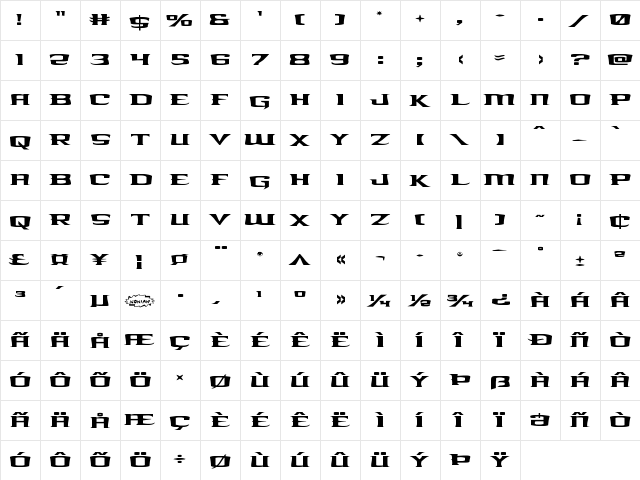
Kreature Kombat Expanded Expanded
Design Context for Kreature Kombat Expanded Typeface
Kreature Kombat Expanded is a composed and adaptable typeface that performs quietly and consistently across a wide range of design contexts.